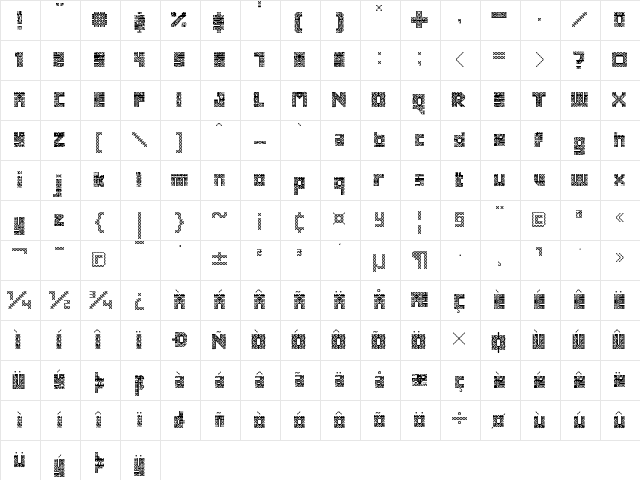
Complete Antique Paleoindonesia Regular glyph index. Displaying only characters natively supported by Antique Paleoindonesia Regular font.
Antique Paleoindonesia wears its vintage influences proudly, with letterforms that recall mid-century signage, classic packaging, and nostalgia-driven design.